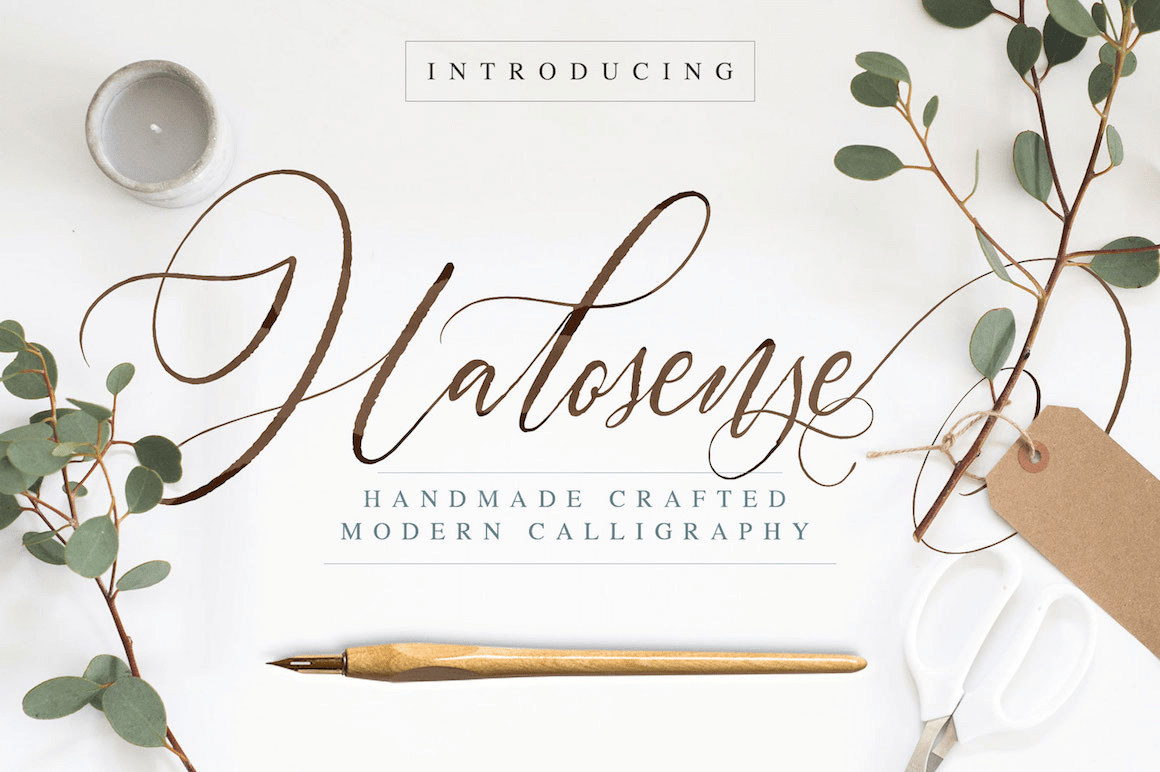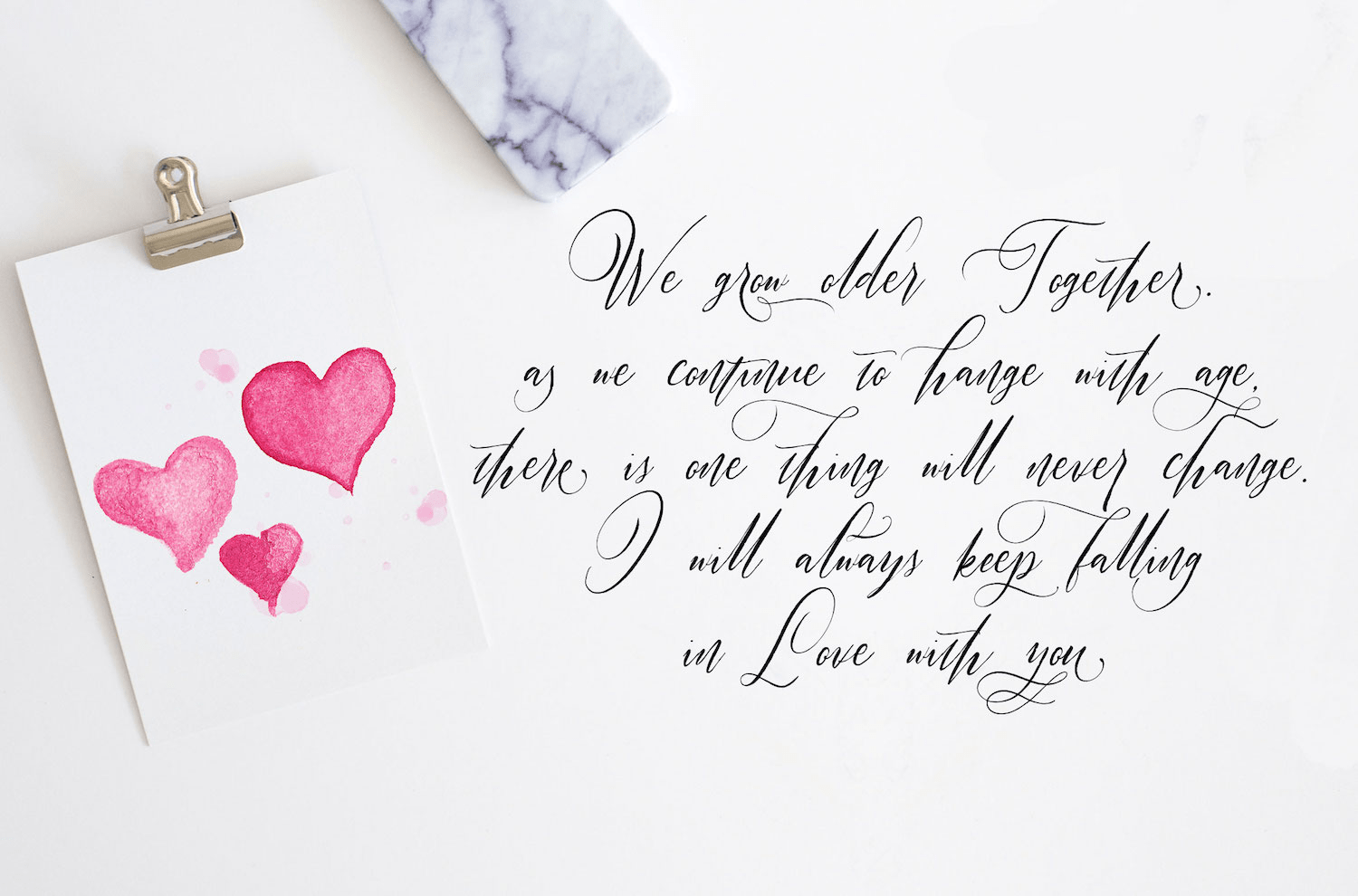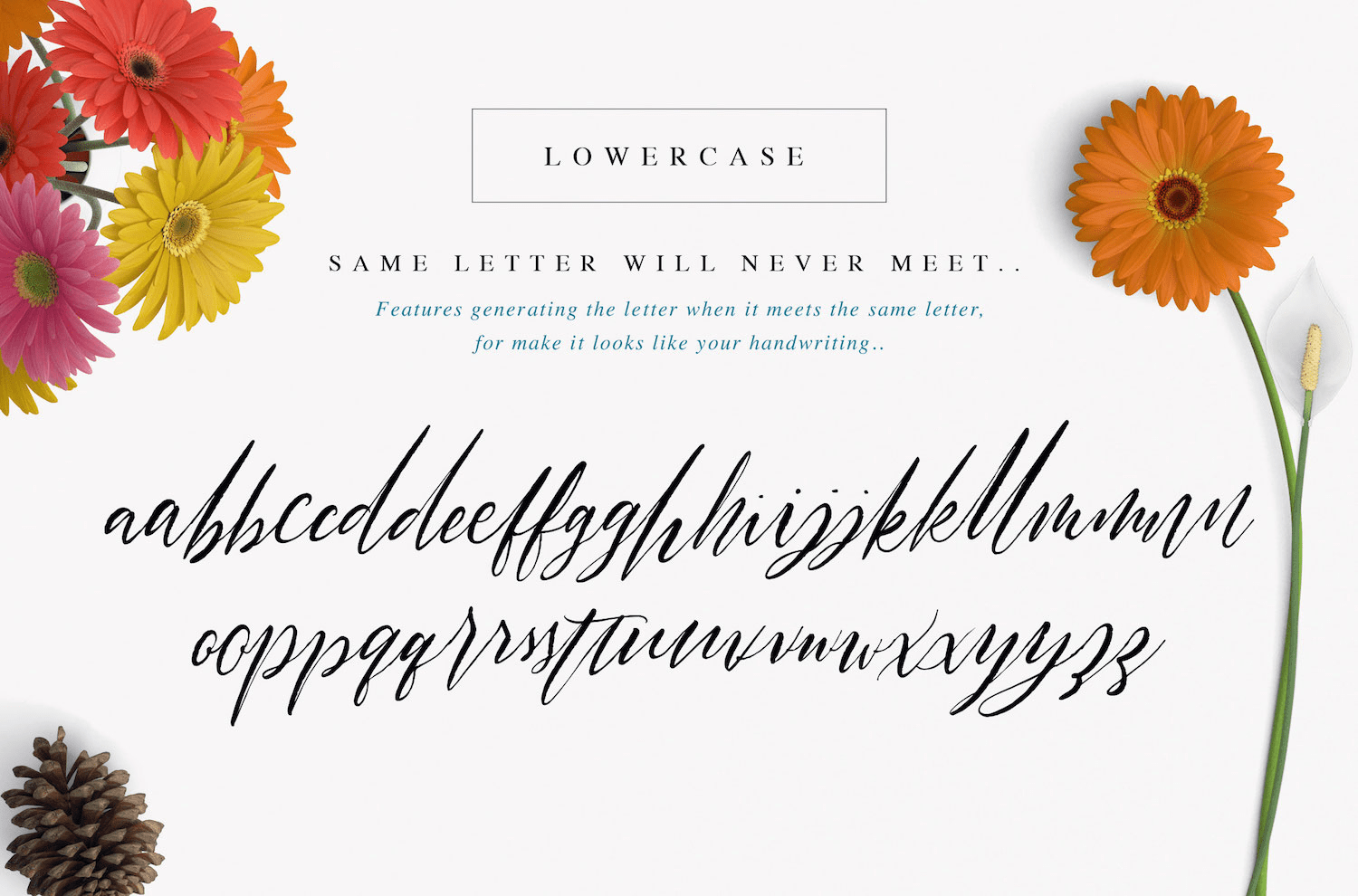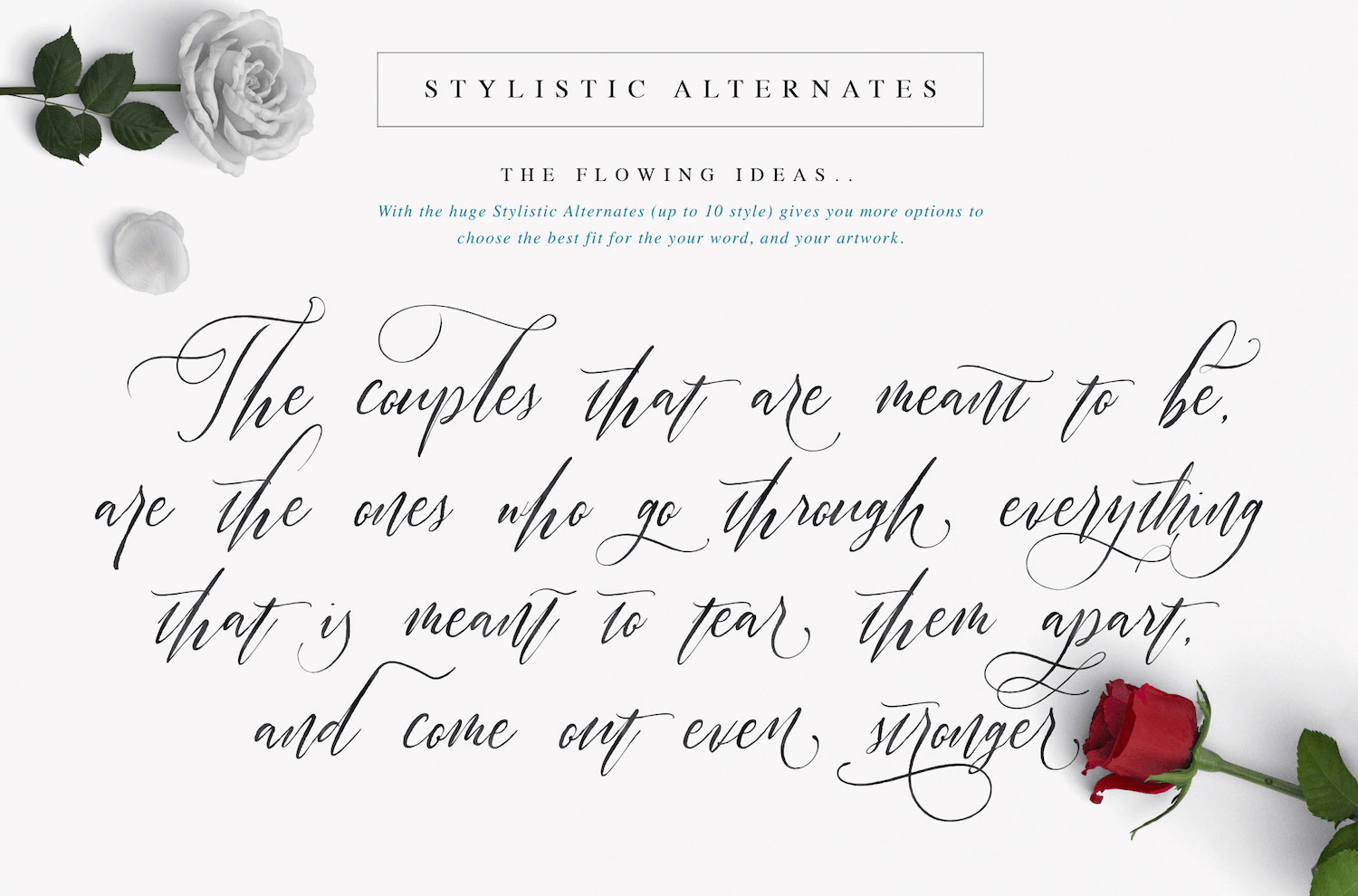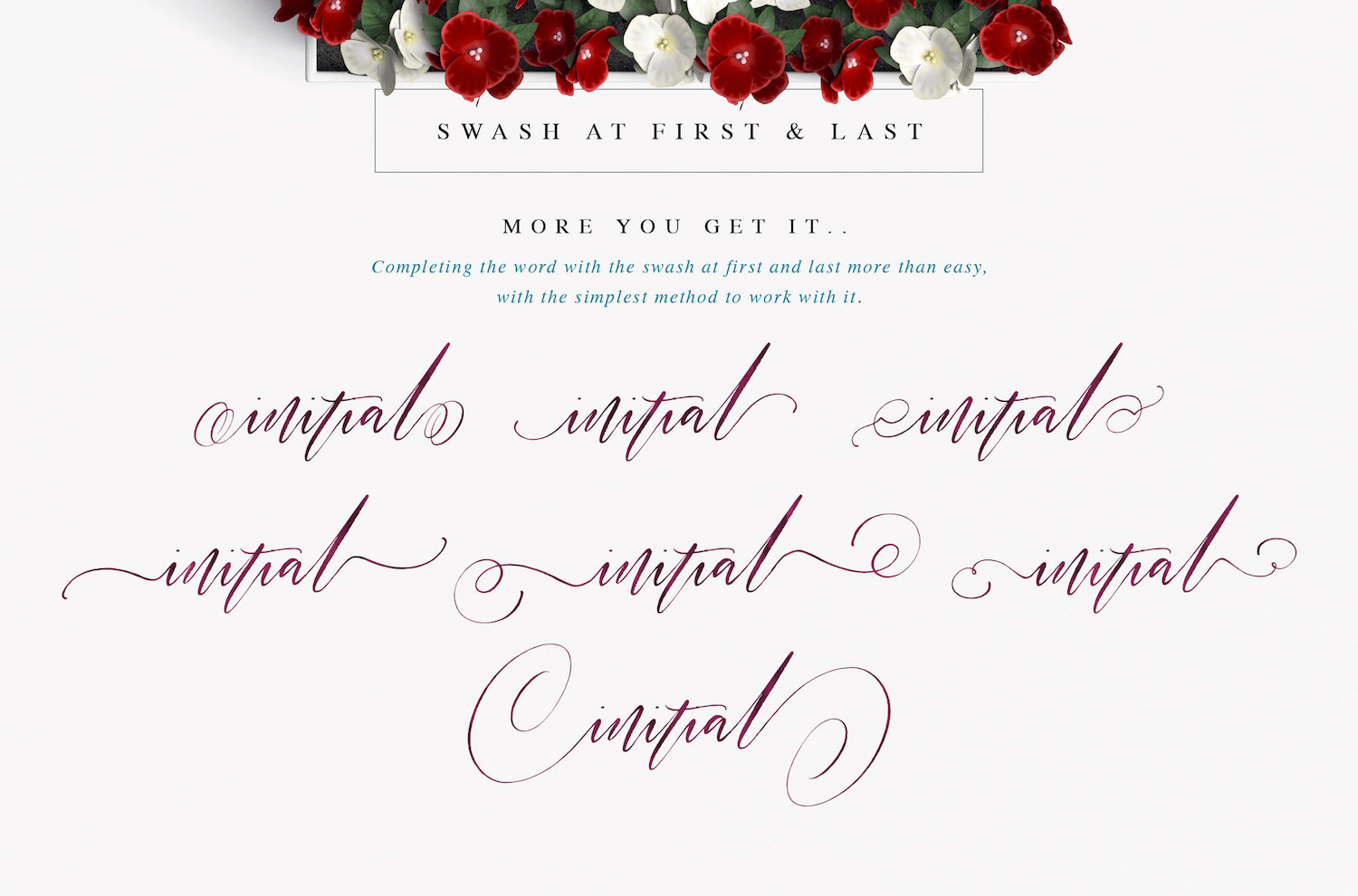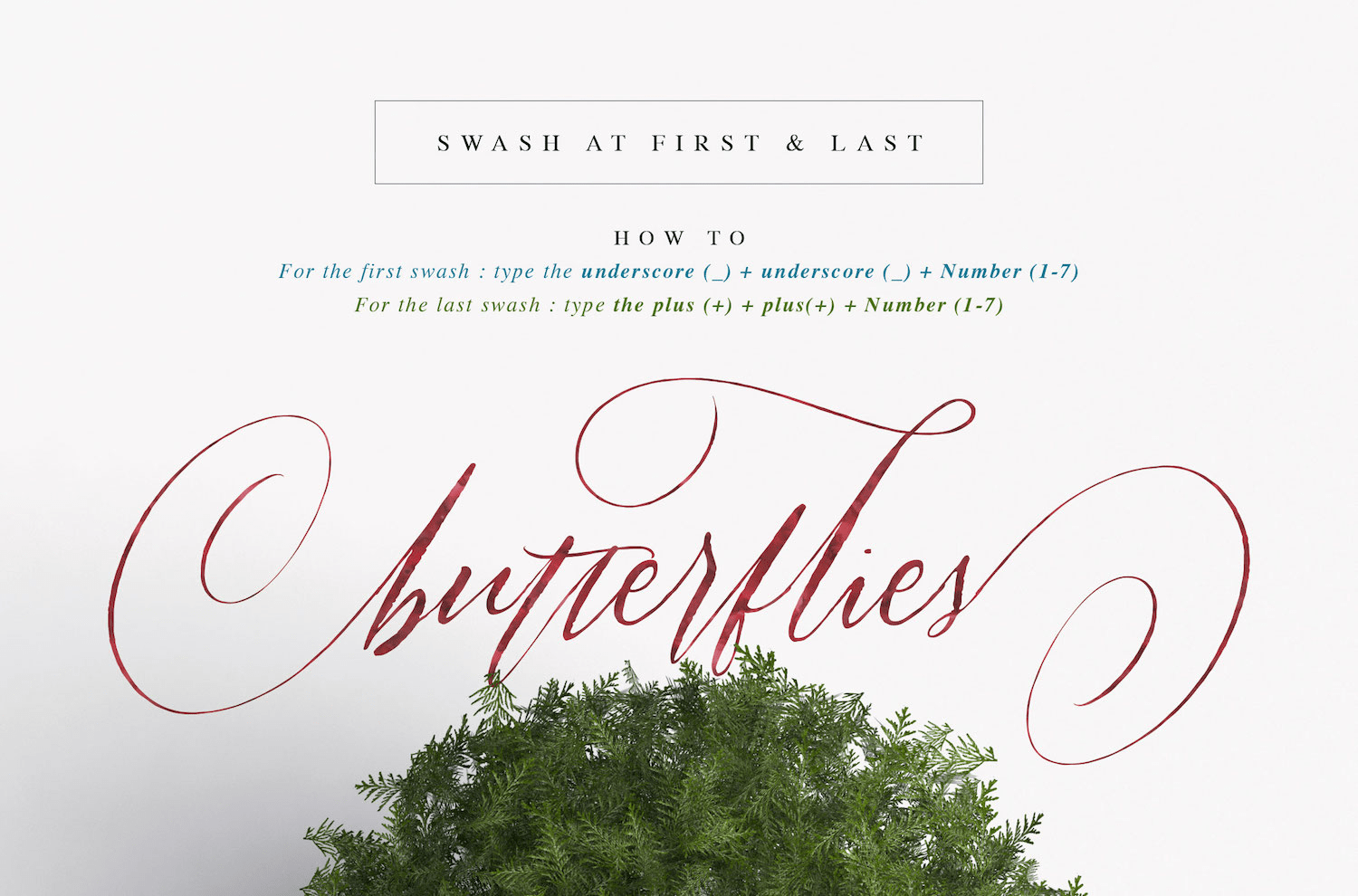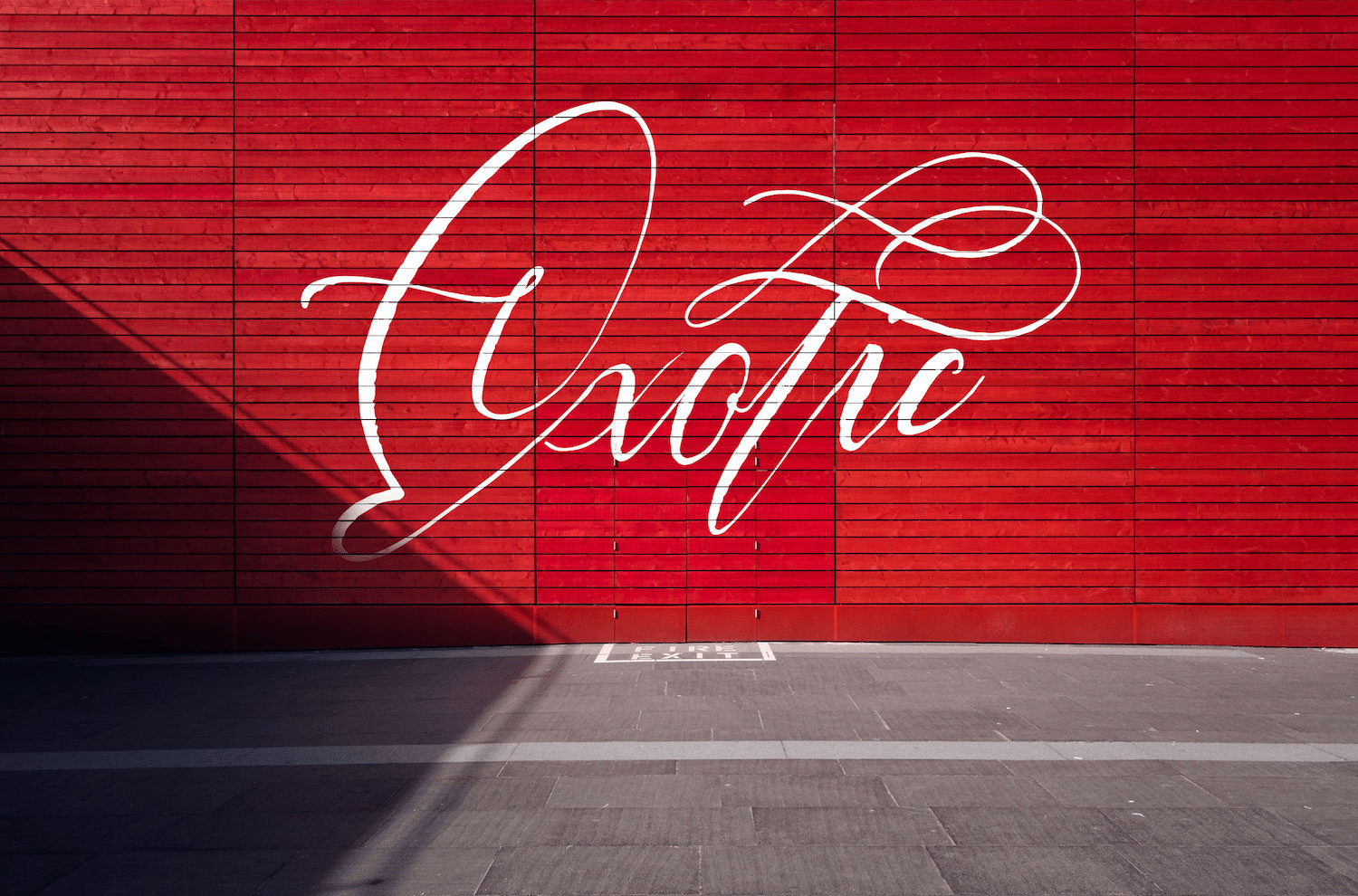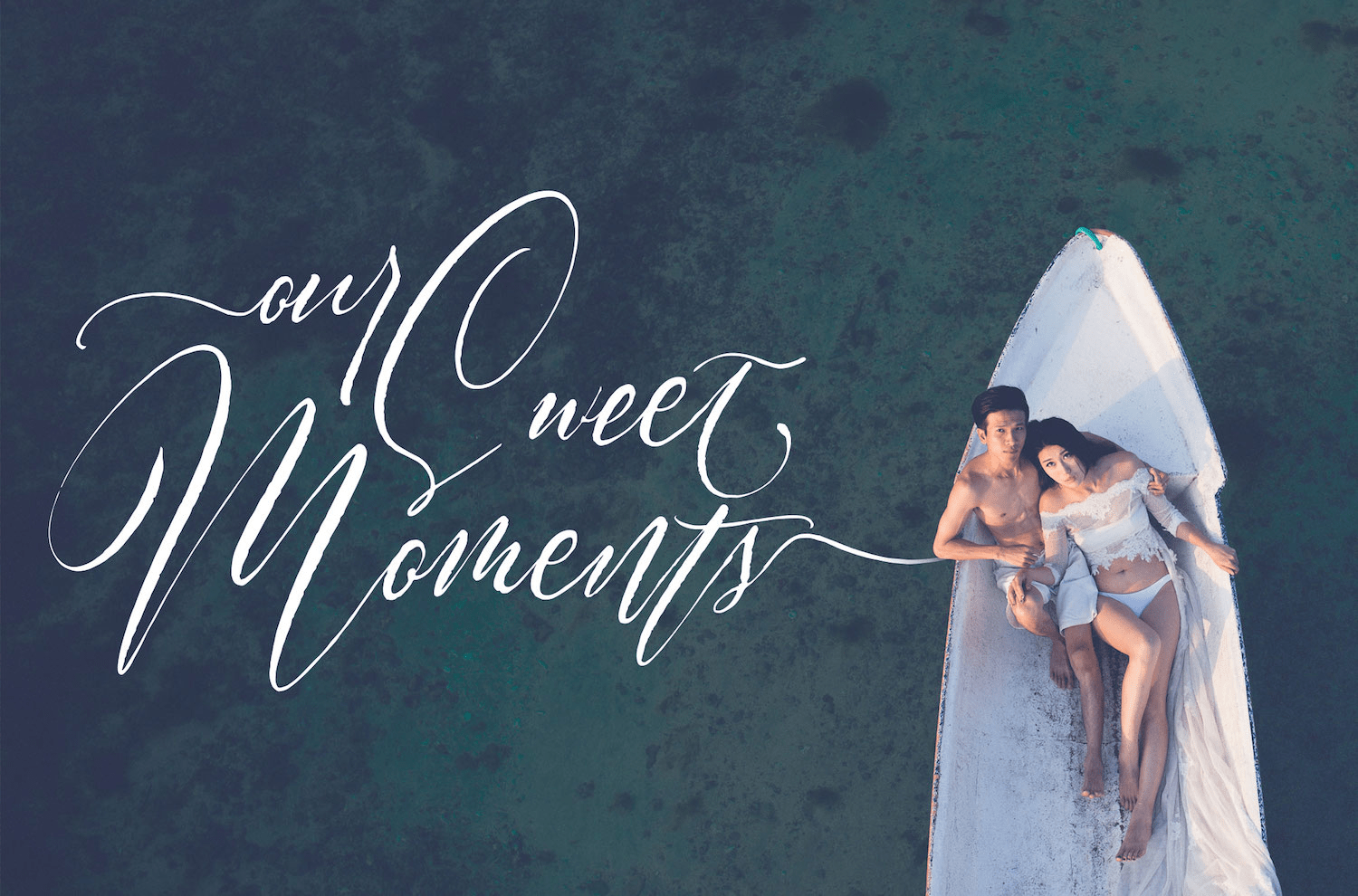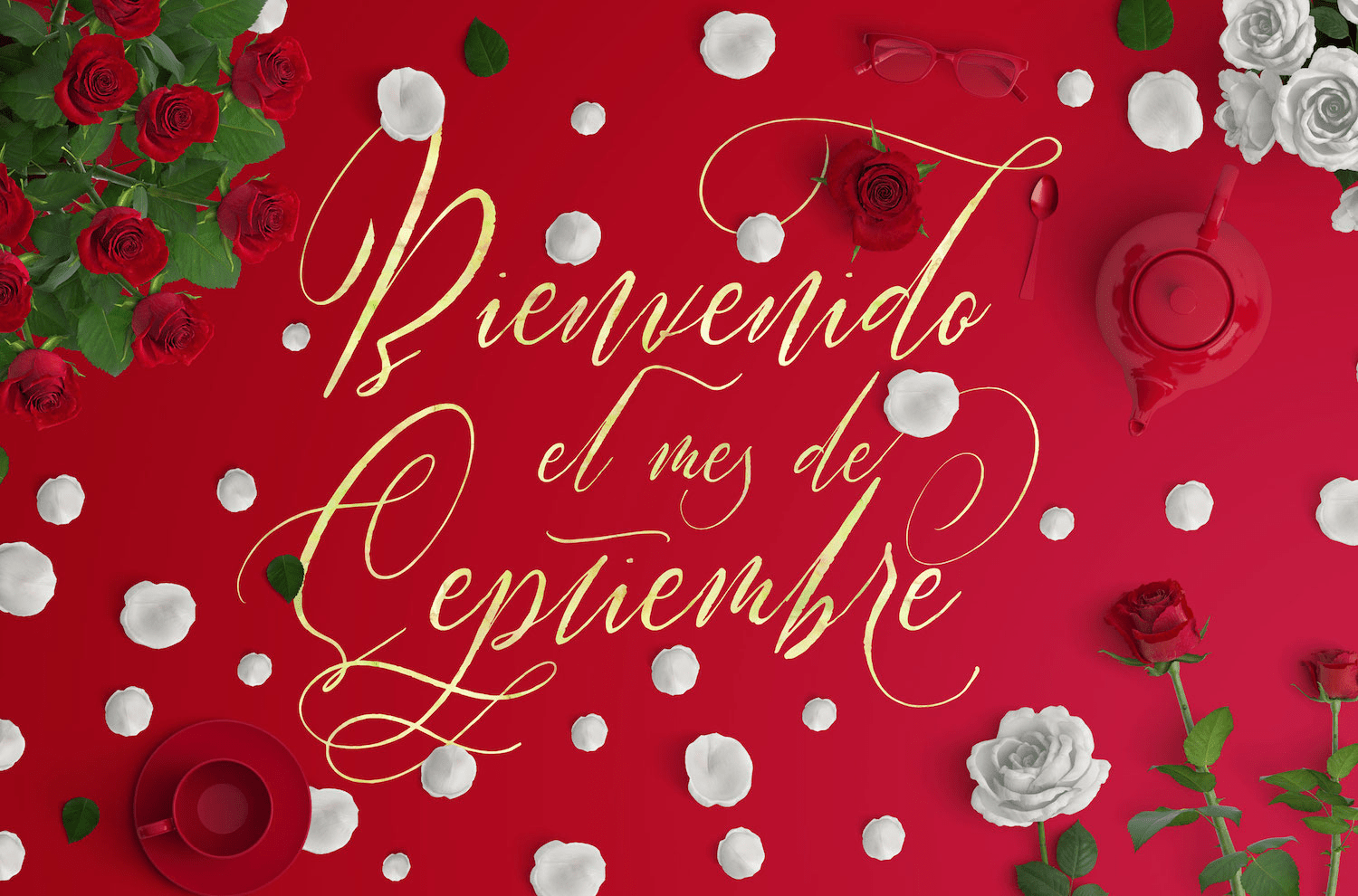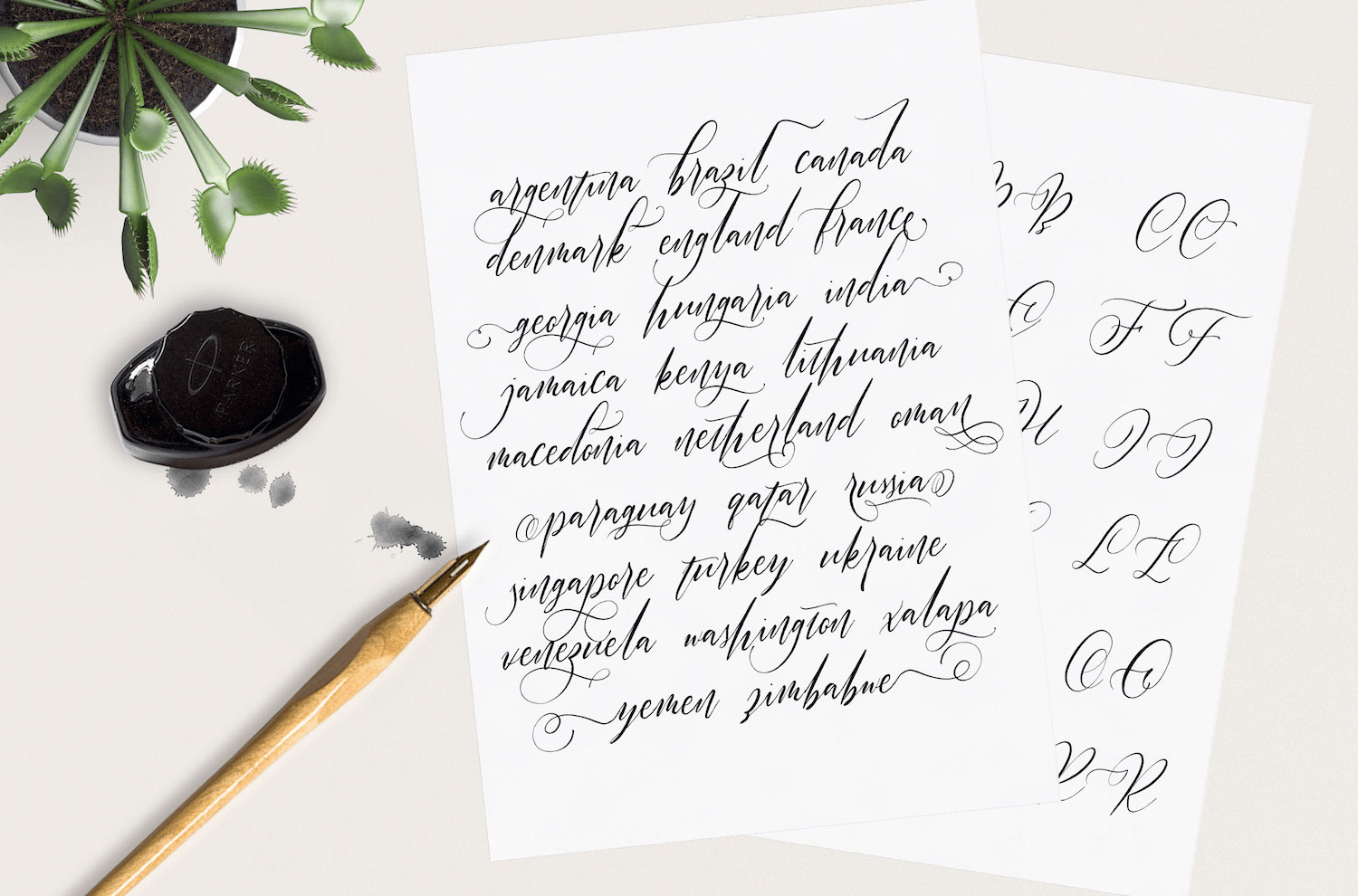
Halosense
Font Family by AF Studio
Introducing Halosense Handmade Crafted Modern Calligraphy
Referring from the product before called Octavia Script, this new modern calligraphy is more natural feel, handmade created with small touch of digital to make them flowing like a water on the river. :)